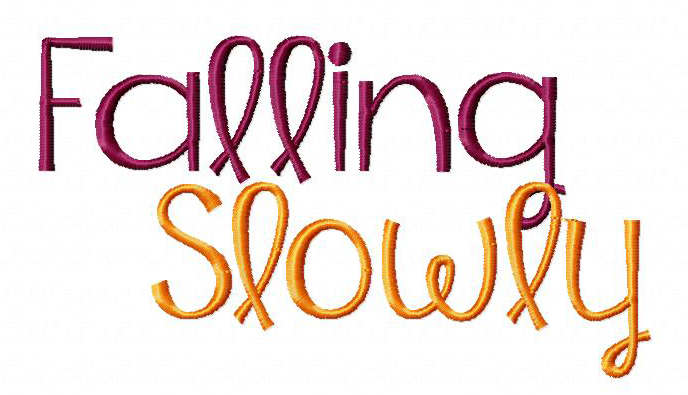
The Falling Slowly Machine Embroidery Font Set includes Upper and Lowercase Letters, Numbers and Bonus Punctuation in all of the following sizes: 1" 2" & 3"
Font Created by Kimberly Geswein and digitized by BlastoStitch.com